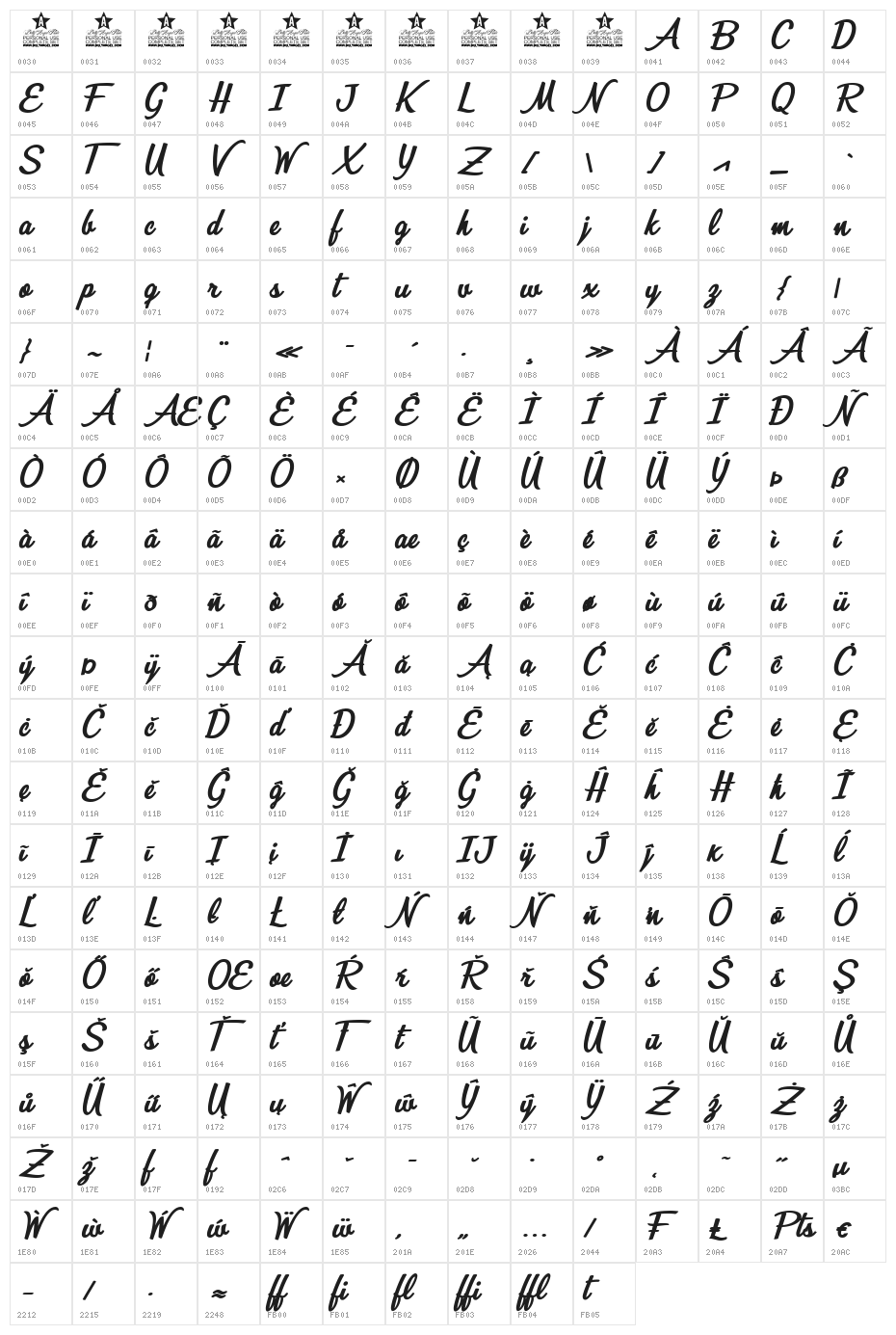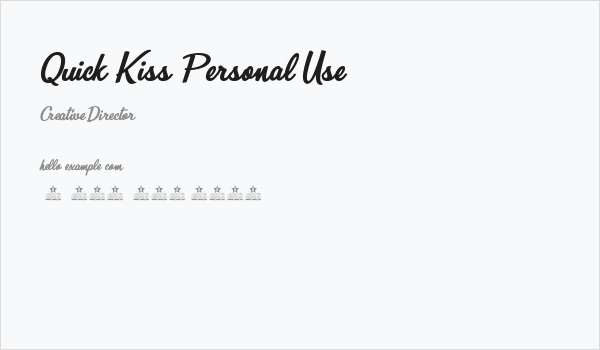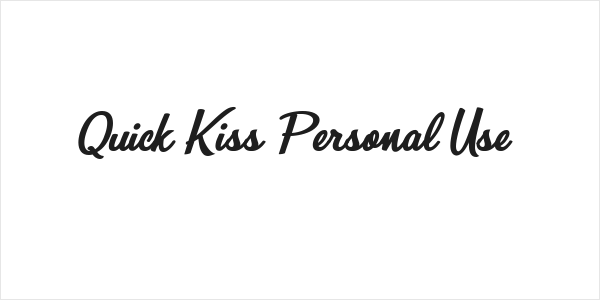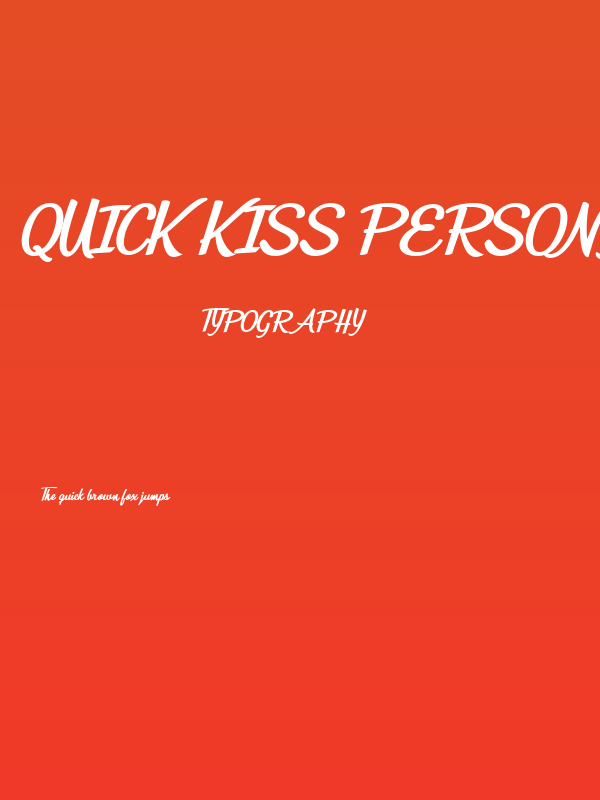
Quick Kiss Personal Use Font
Quick Kiss Personal Use Description
This font features a dynamic and flowing script style, characterized by its elegant and cursive letterforms. The uppercase letters exhibit a graceful slant with smooth, sweeping curves, while the lowercase letters maintain a consistent fluidity, enhancing the overall aesthetic. The font's design incorporates a sense of movement and rhythm, making it visually appealing for creative projects. Its bold strokes and high contrast between thick and thin lines add a touch of sophistication and flair. The font's playful yet refined nature makes it suitable for a variety of design applications, from invitations to branding materials.